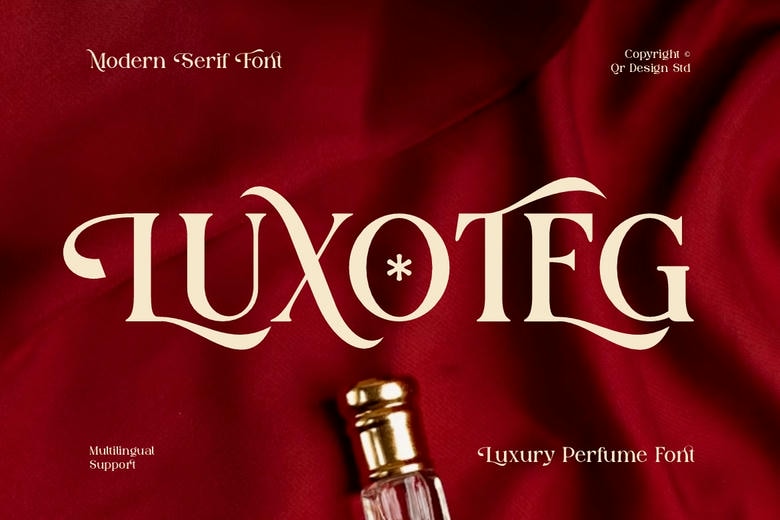
Luxoteg Font
Luxoteg brings high-fashion glamour, editorial style, and a sense of luxury to your work. It’s perfect for luxury perfume brands, cosmetic packaging, fashion logos, magazine titles, editorial headlines, wedding stationery, quote prints, and custom craft projects.
Luxoteg Serif Font